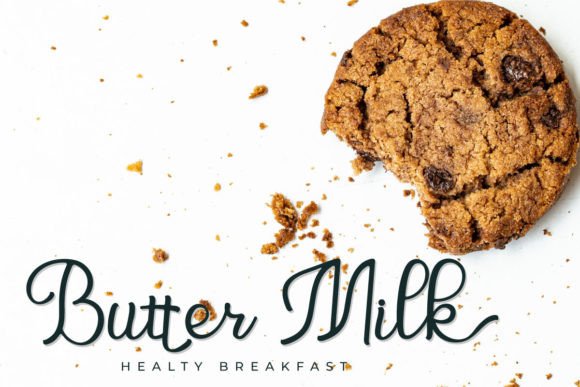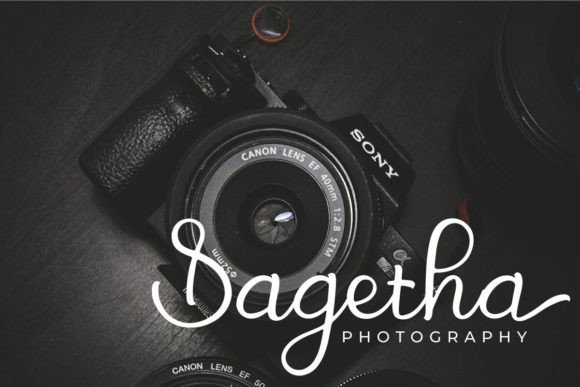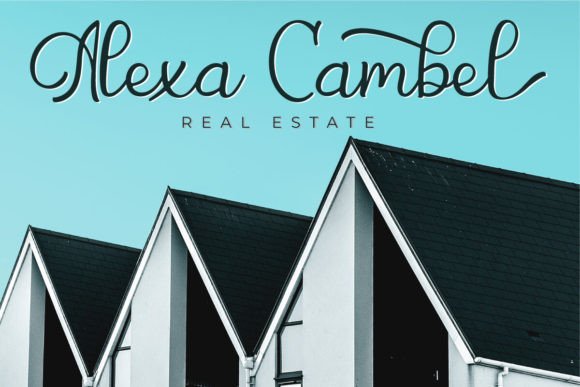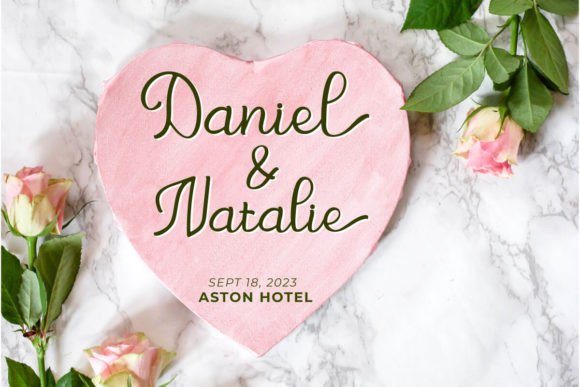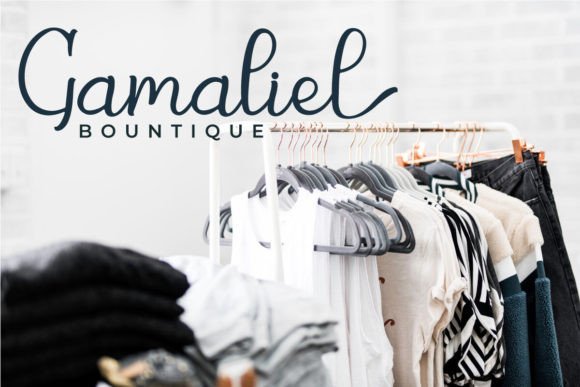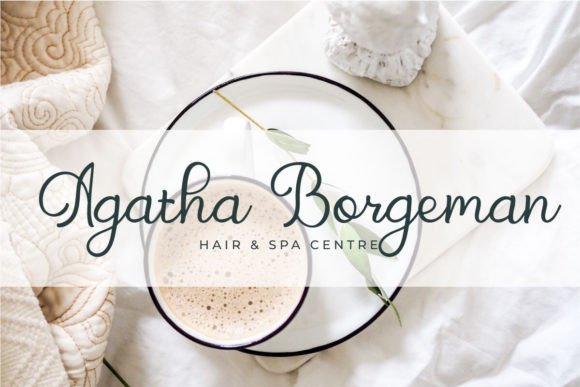
Introducing Benefit Font: Elevate Your Designs with Elegance and Sophistication
Are you looking for a font that can add a touch of luxury and sophistication to your designs? Look no further than Benefit Font, a stunning script font that is perfect for a wide range of creative projects. In this article, we’ll explore the features and benefits of Benefit Font, and show you how to use it to take your designs to the next level.
What is Benefit Font?
Benefit Font is a stylish script font that is designed to make a statement. With its elegant and flowing lines, this font is perfect for adding a touch of sophistication to any design. Whether you’re working on a wedding invitation, a logo, or a social media post, Benefit Font is sure to impress.
Features of Benefit Font
So, what makes Benefit Font so special? Here are just a few of its key features:
- Elegant and sophisticated design: Benefit Font features a beautiful, flowing script design that is perfect for adding a touch of luxury to your designs.
- Highly versatile: This font can be used for a wide range of projects, from wall displays and wedding invitations to social media posts and product packaging.
- Easy to read: Despite its elegant design, Benefit Font is still highly legible, making it perfect for use in both print and digital applications.
Uses for Benefit Font
So, what can you use Benefit Font for? The possibilities are endless! Here are just a few ideas to get you started:
- Wall displays: Create a stunning wall display with Benefit Font, perfect for showcasing a quote, a message, or a brand slogan.
- Wedding invitations: Add a touch of elegance to your wedding invitations with Benefit Font, and make your special day even more memorable.
- Social media posts: Use Benefit Font to create eye-catching social media posts that will help you stand out from the crowd.
- Logos and branding: Create a professional and sophisticated logo with Benefit Font, perfect for businesses and personal brands.
- Product packaging: Add a touch of luxury to your product packaging with Benefit Font, and make your products stand out on store shelves.
- Invitations and stationery: Use Benefit Font to create beautiful invitations, stationery, and other paper products that will make a lasting impression.
Tips for Using Benefit Font
Here are a few tips for getting the most out of Benefit Font:
- Use it sparingly: Benefit Font is a statement font, so use it sparingly to add emphasis and impact to your designs.
- Experiment with colors and textures: Benefit Font looks great in a variety of colors and textures, so don’t be afraid to experiment and find the perfect combination for your design.
- Pair it with other fonts: Benefit Font pairs well with a variety of other fonts, so try pairing it with a bold font for headings or a clean font for body text.
In conclusion, Benefit Font is a stunning script font that is perfect for designers and crafters looking to add a touch of elegance and sophistication to their designs. With its highly versatile design, ease of use, and instant download, Benefit Font is a must-have for any creative project. So why wait? Download Benefit Font today and start elevating your designs to the next level!